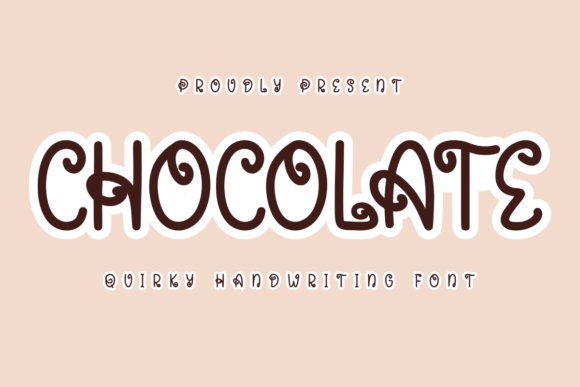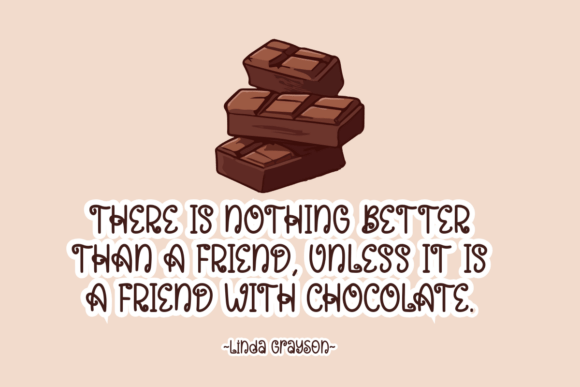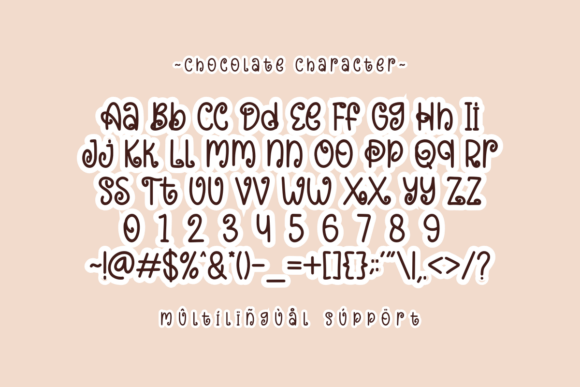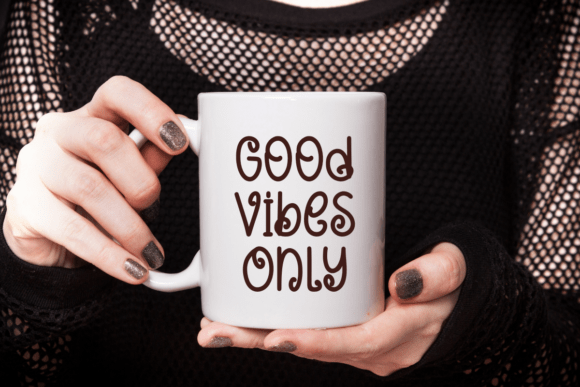
Chocolate Font: Cute Handwritten Font for Sweet DIY & Cricut Projects!
About the Chocolate Font
The Chocolate Font offers a perfect balance of form and function for your design needs. Chocolate is a charming handwriting font with a clean yet whimsical vibe. Featuring smooth curves and a hand-drawn feel, this font is perfect for romantic designs, wedding invitations, heartfelt branding, and elegant social media graphics. Its versatile style pairs a modern aesthetic with a touch of playful warmth, making it ideal for creative and love-inspired projects.
Chocolate Font Usage Examples
Chocolate Font Example